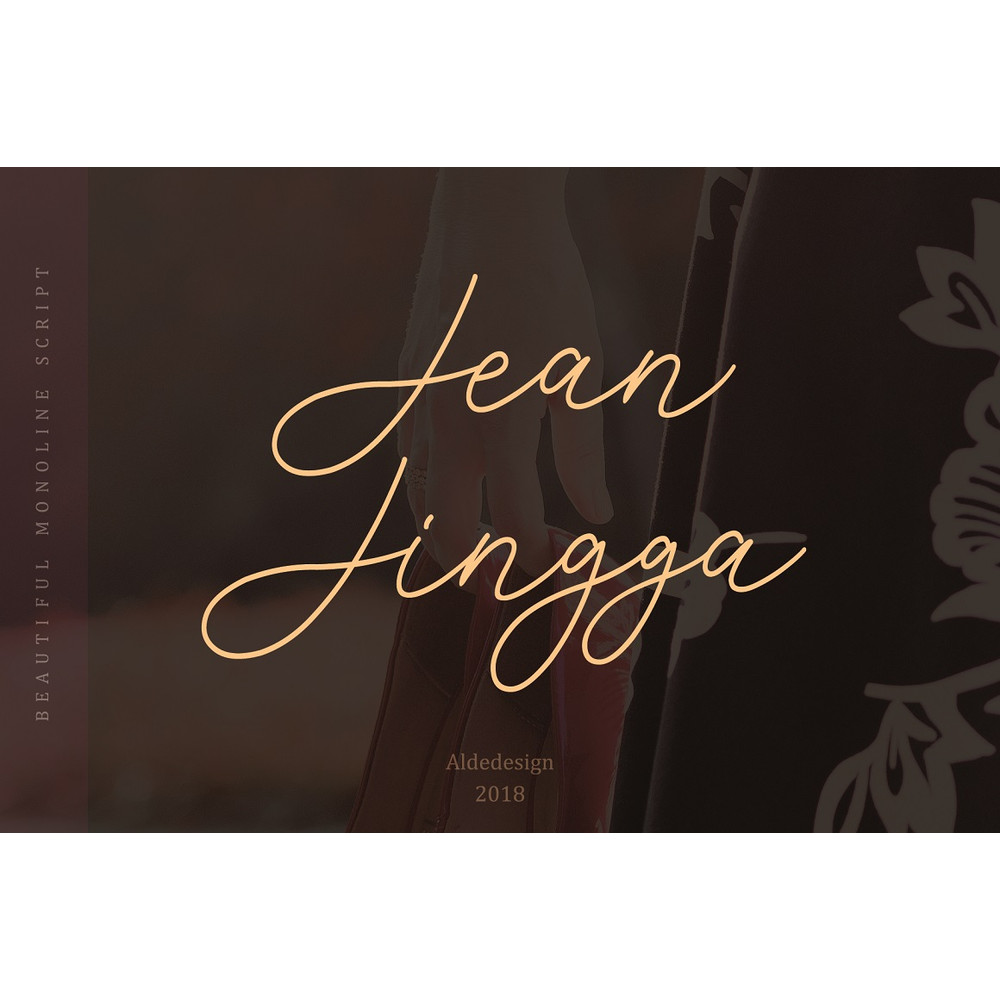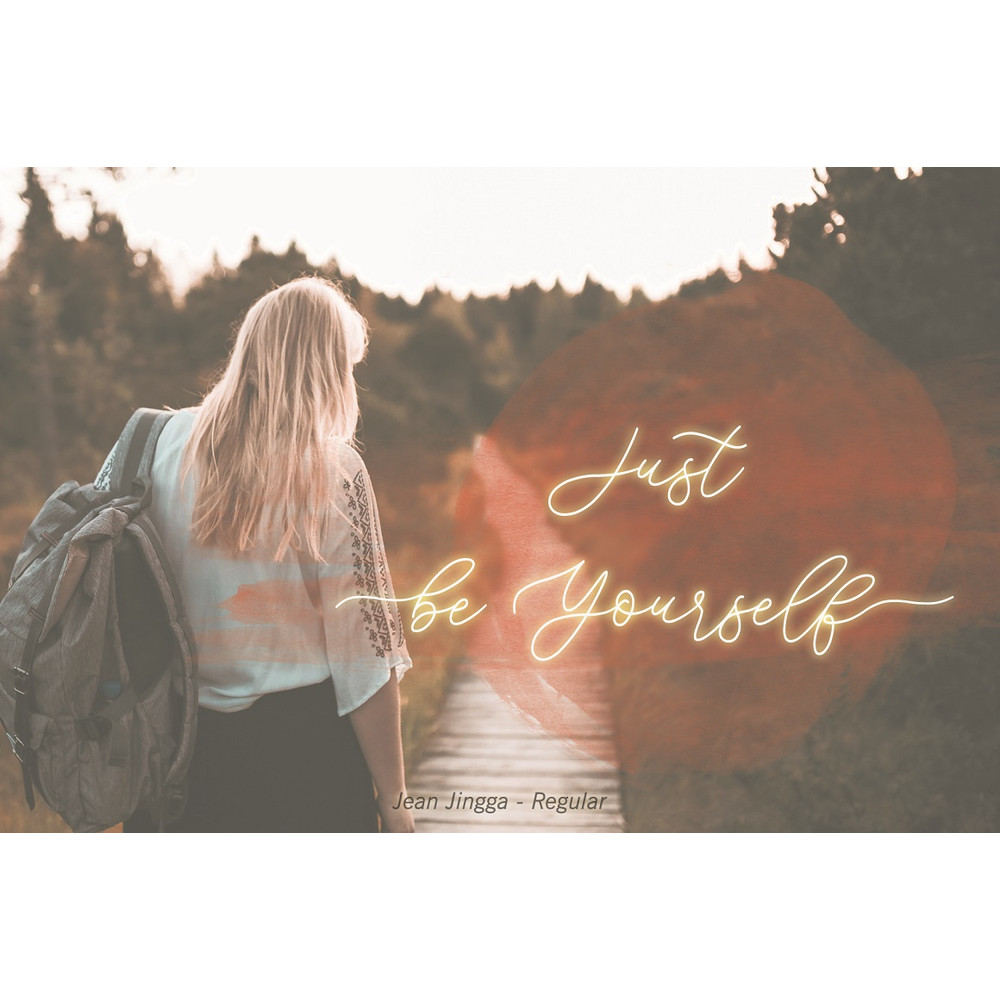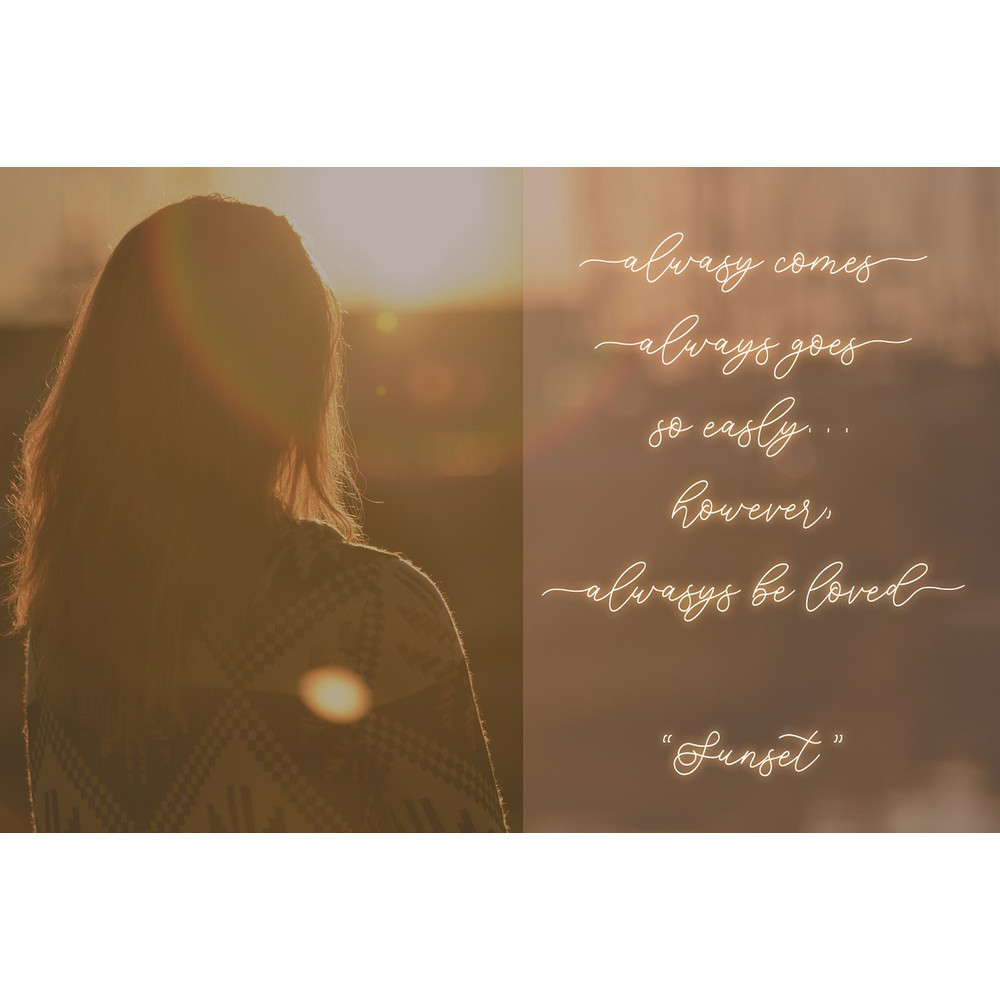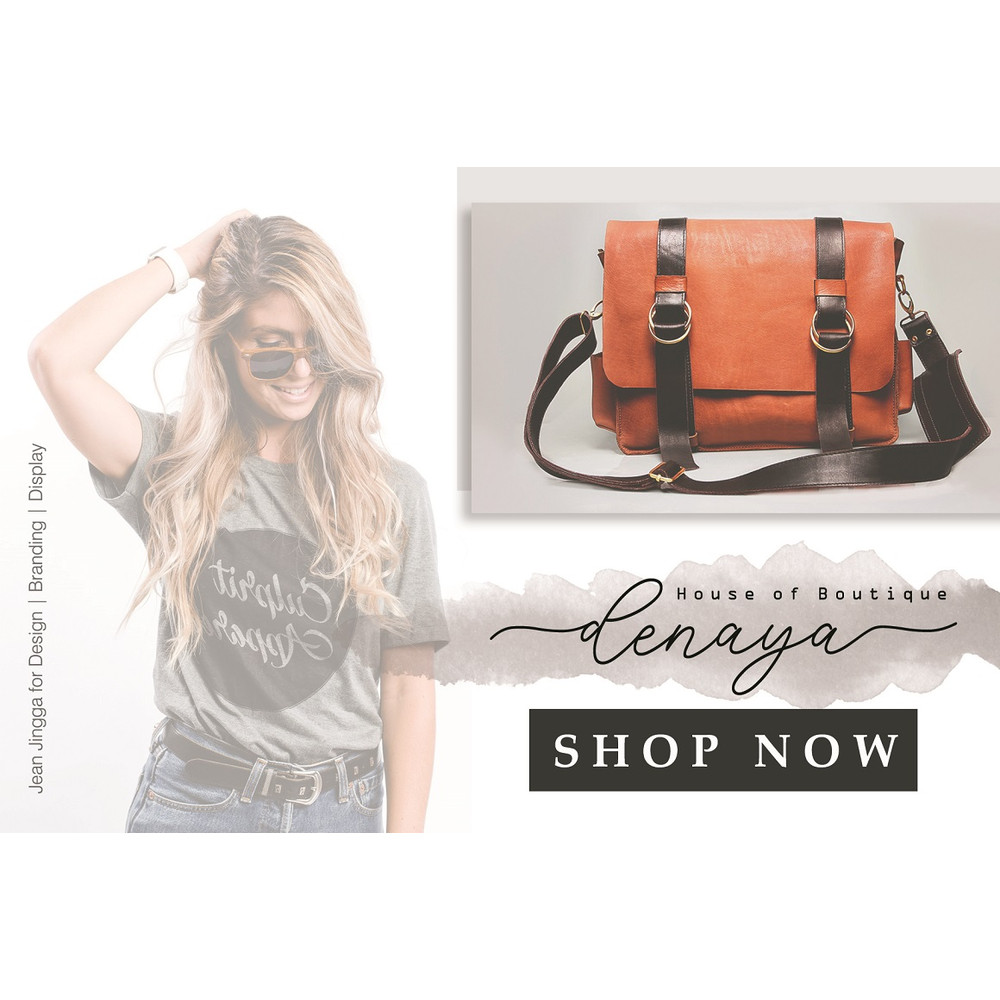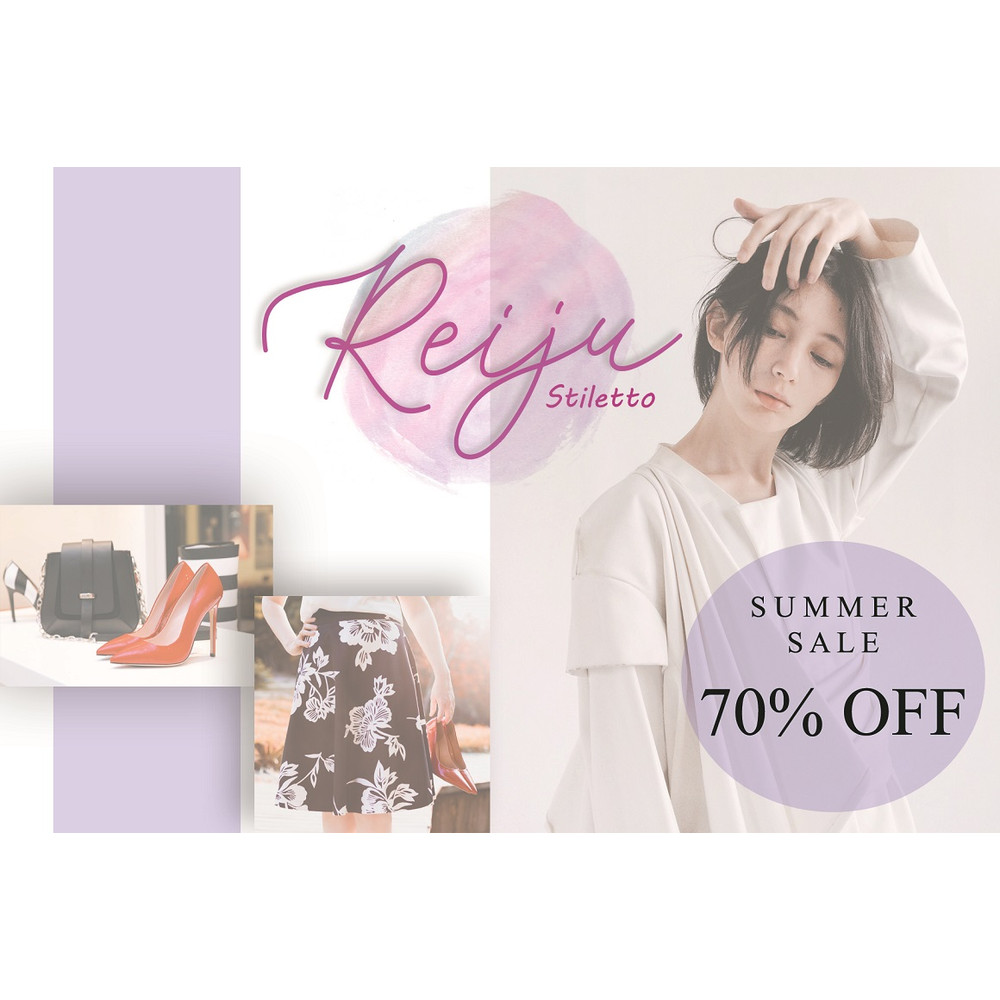
Jean Jingga Trending Fonts - Digital Font
Jean Jingga is a beautiful handwritten styled font that looks natural and elegant in a wide range of design concepts.
This font is easy to use, great for signature and can be used to give your projects a modern and casual flair.